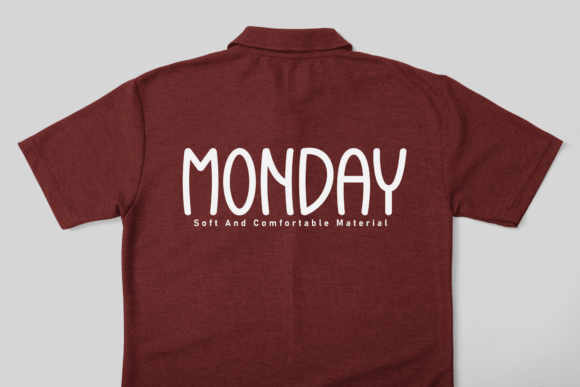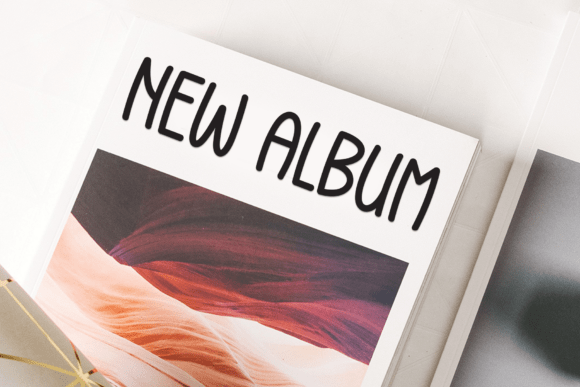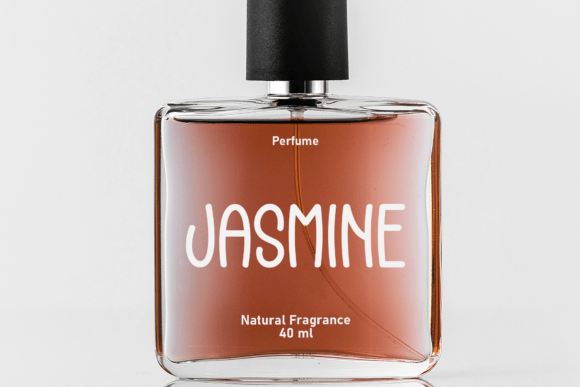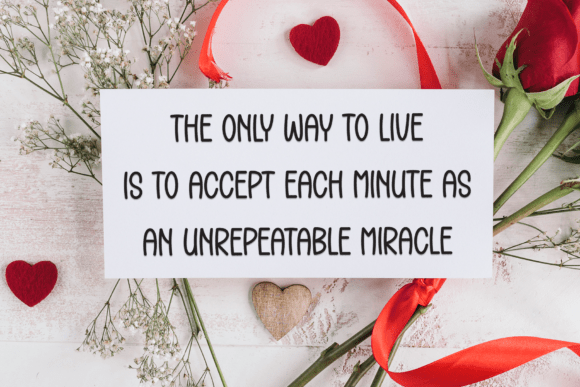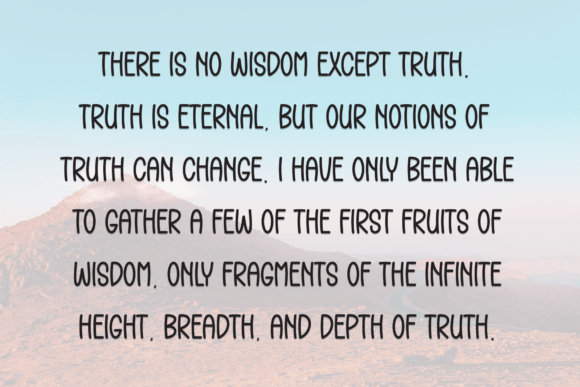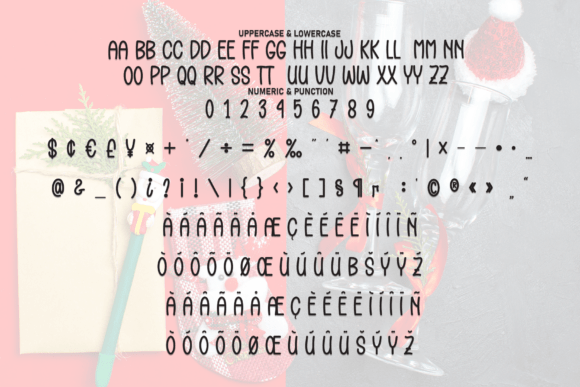
Introduction to Santa Brush Font
As designers, we’ve all been there – staring at a blank canvas, waiting for inspiration to strike. It’s that moment when a well-crafted font can be the game-changer, elevating our creative project from ordinary to extraordinary. For those seeking a high-quality, free download that adds a touch of whimsy to their designs, look no further than the Santa Brush Font.
This delightful handwritten display font is perfect for breathing life into bespoke wedding invites, heartfelt cards, or any art piece that requires an element of charm and elegance. With a transparent background and a playful, exuberant feel, the Santa Brush Font is a valuable design resource for any creative project.
Whether you’re a seasoned designer or just starting out, this beguiling font is sure to bring a smile to your face and a touch of magic to your designs.
Key Features of Santa Brush Font
- High-quality, hand-drawn design ideal for creative projects
- Transparent background for easy layering and customization
- Unique, whimsical style perfect for festive and holiday-themed designs
- Available in 6 different font styles, with each style offering 4 variations in size and resolution (up to 300 DPI)
- Supports Latin, Cyrillic, and Greek alphabets, making it a versatile design resource
Honest Review: Santa Brush Font
What works well with the Santa Brush Font is its playful, handwritten style. It adds a touch of whimsy to any design, making it perfect for creative projects like holiday cards or social media graphics. I also appreciate the variety of characters available, including uppercase and lowercase letters, numbers, and special characters.
- ✨ Playful, handwritten style that adds a touch of whimsy to designs
- ✨ High-quality font with a transparent background
Overall, I’m impressed with the Santa Brush Font. It’s a great resource for designers looking to add a bit of personality to their projects. While it may have some limitations, its unique style and high-quality design make it a valuable addition to any design arsenal.
The Santa Brush Font is ideal for a variety of creative projects, including holiday cards, gift tags, and social media graphics. Its high-quality design and transparent background make it a valuable addition to any design resource library.